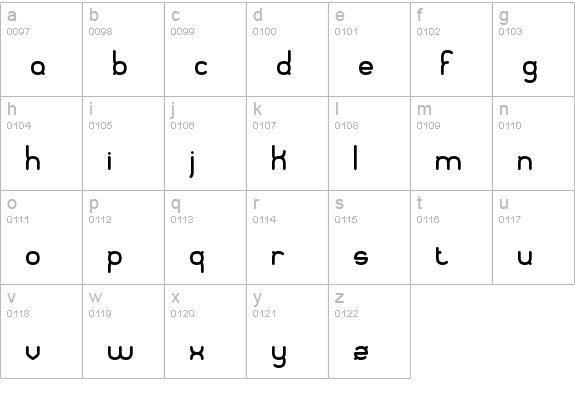
Quadratic BRK Font Details
Quadratic BRK font is a modern and stylish typeface that brings a touch of sophistication to any design project. With its sleek lines and geometric shapes, this font is perfect for creating eye-catching titles, headings, and logos. The quadratic BRK font is versatile and can be used in a variety of design applications, from print materials to digital projects. The best part about Quadratic BRK font is that it is available for free download at FontsMarket.com. This means that you can easily access this unique and elegant font without any cost. Whether you are a designer looking to add a fresh look to your creations or a business owner in search of a new font for branding purposes, Quadratic BRK font is a fantastic choice that won't break the bank. Download it today and elevate your designs with this stunning typeface.